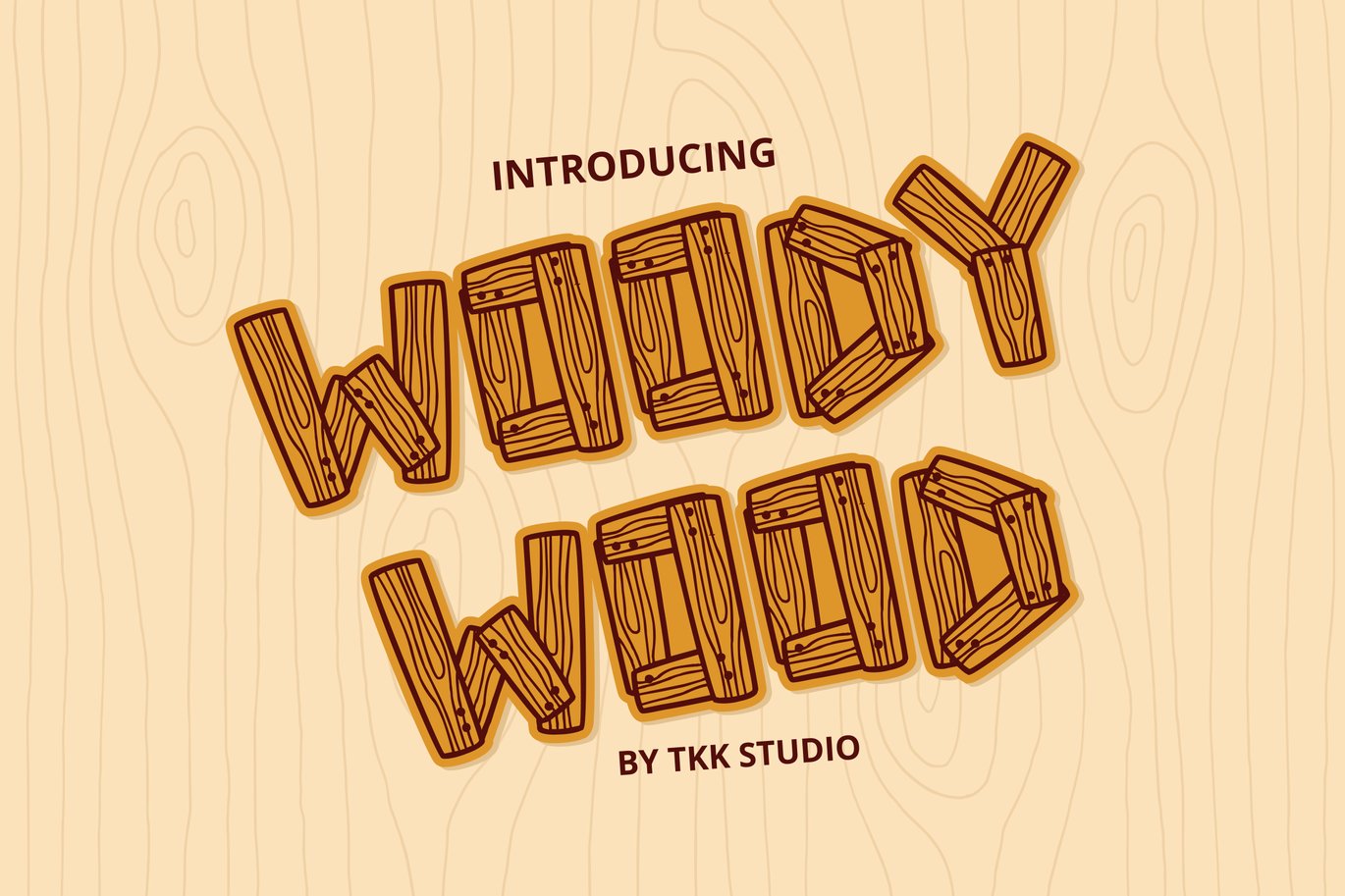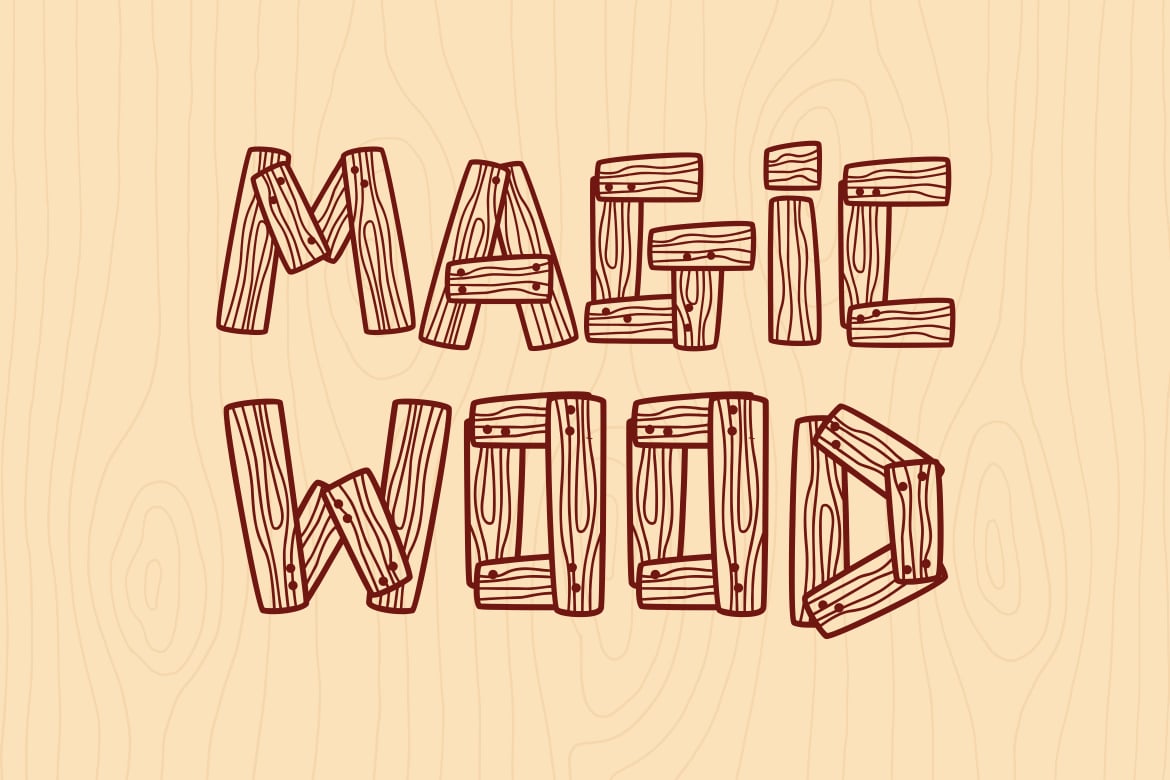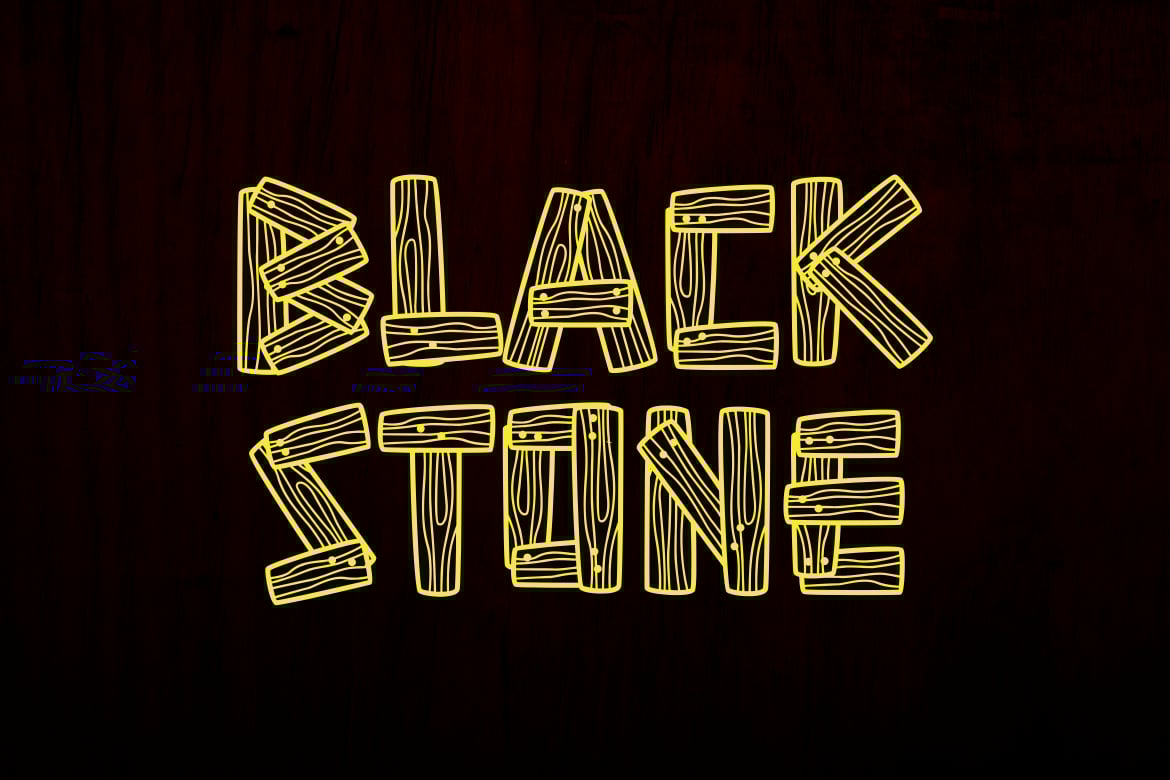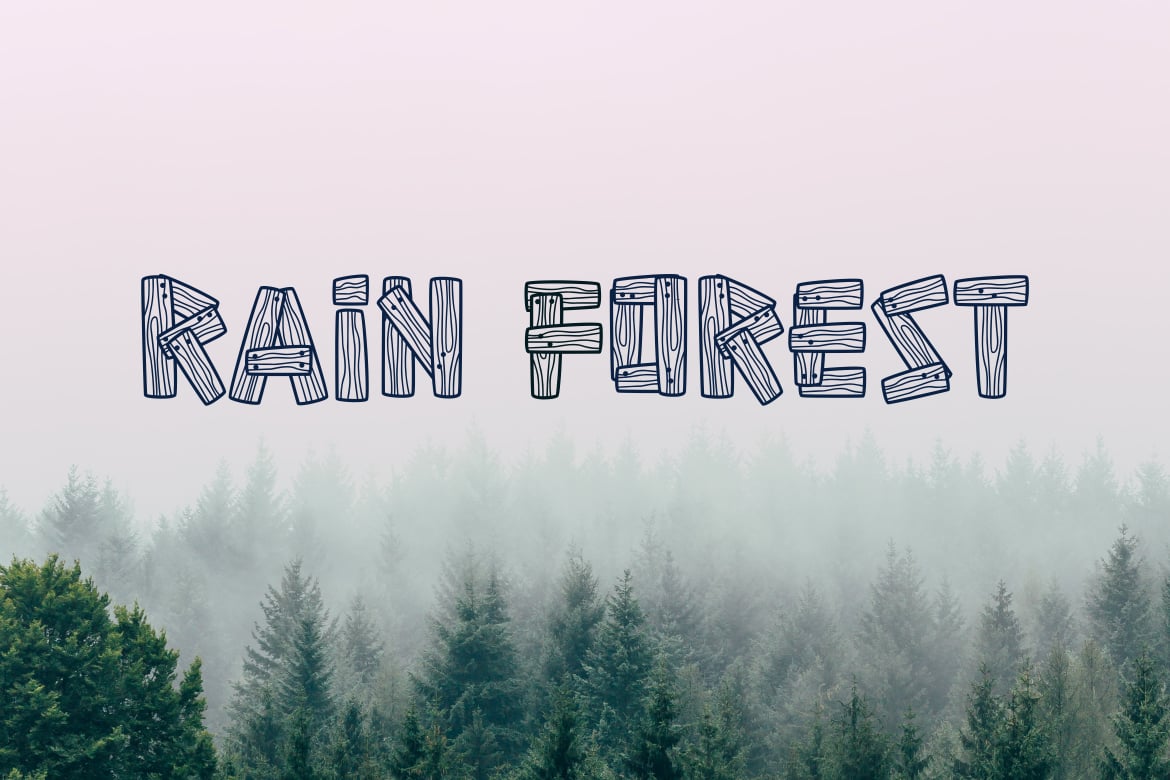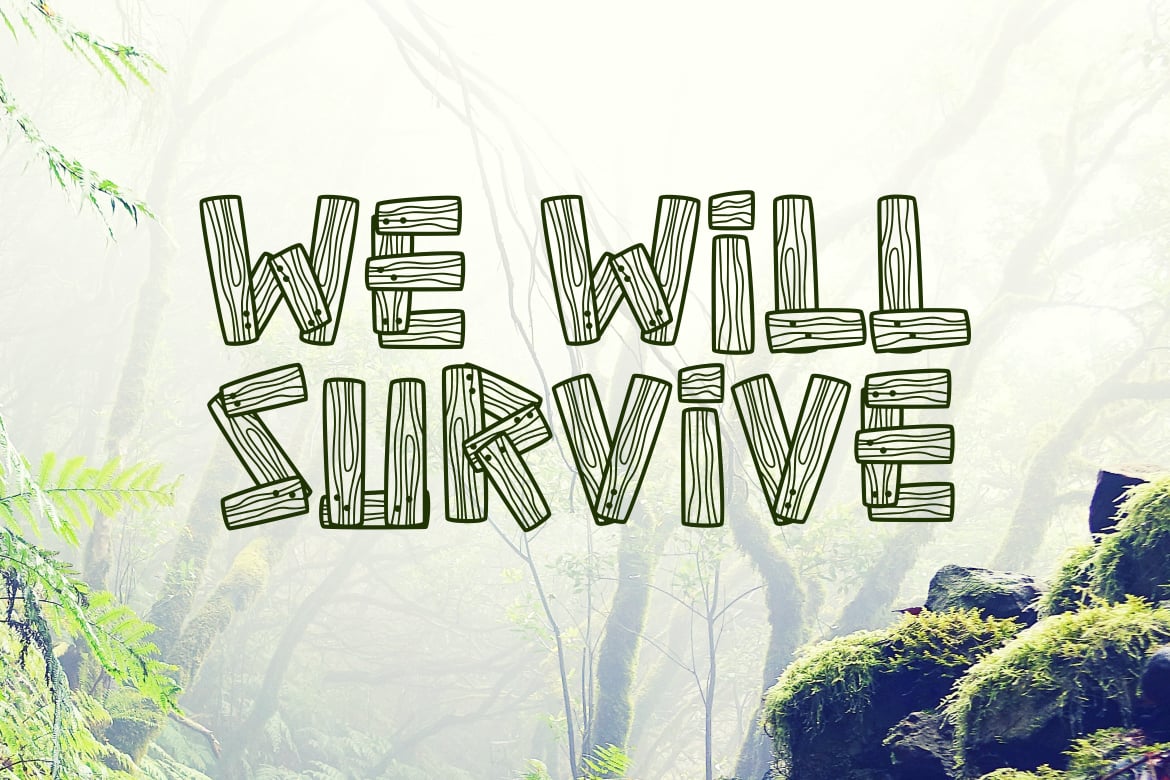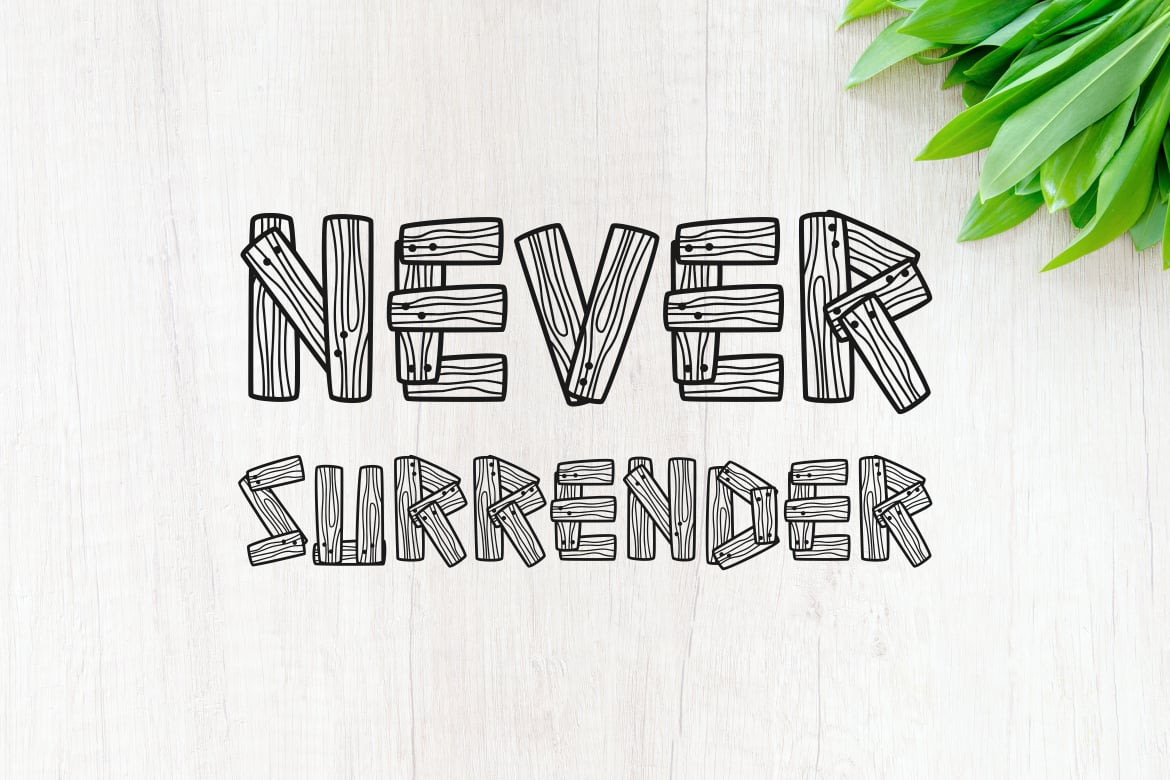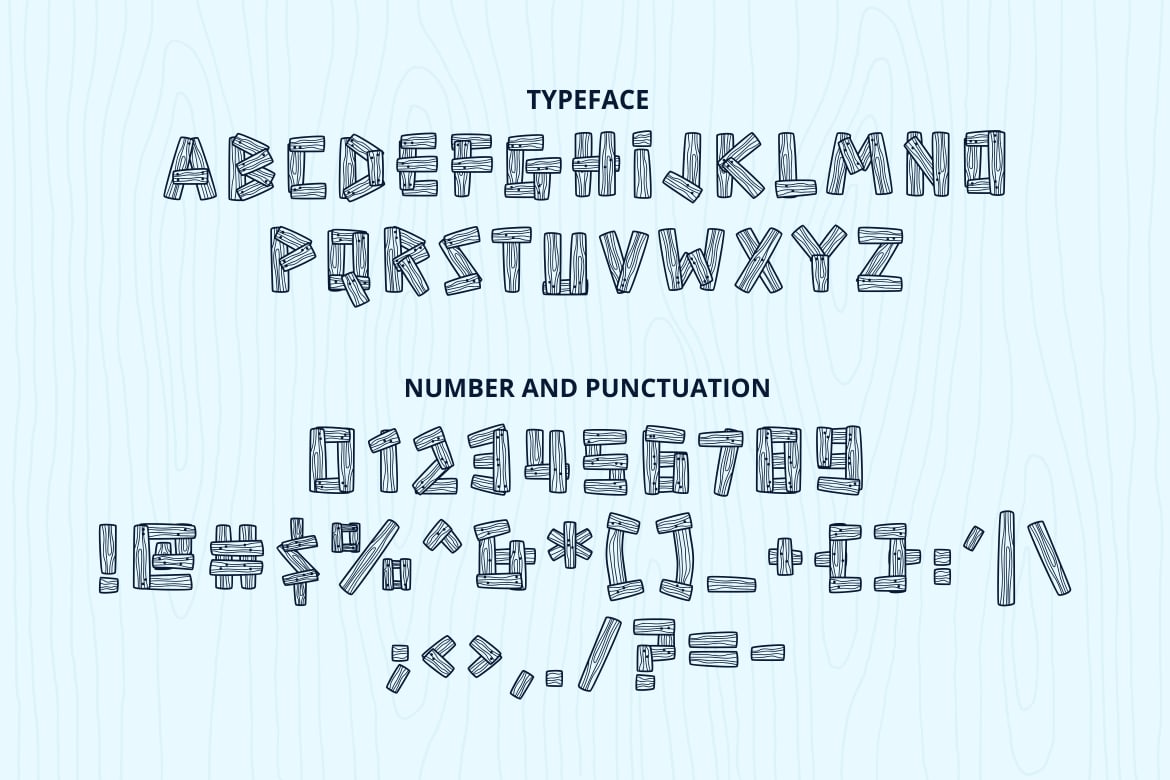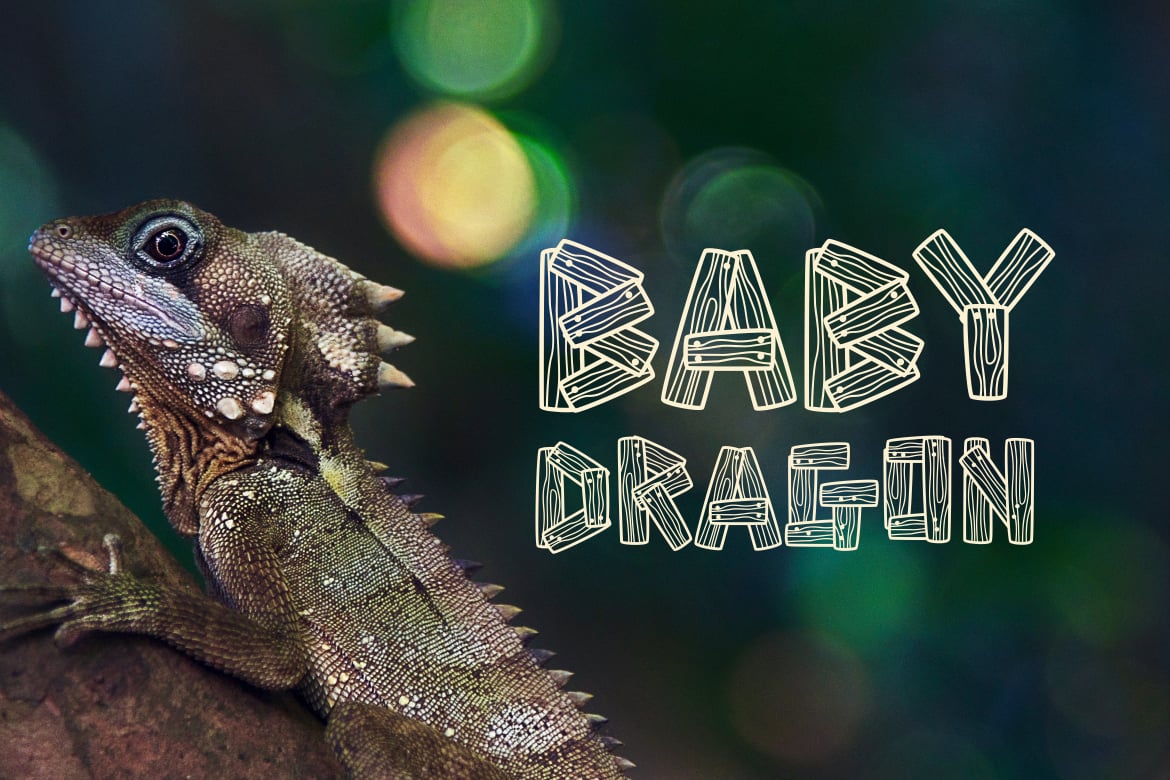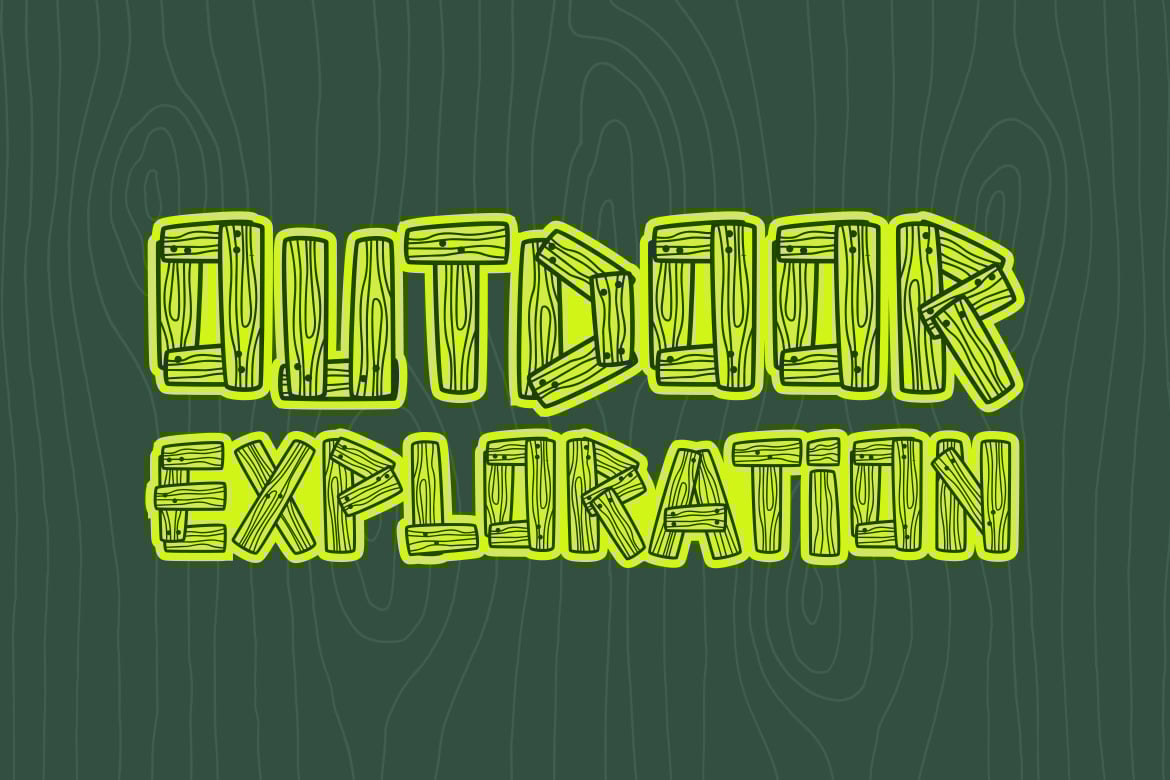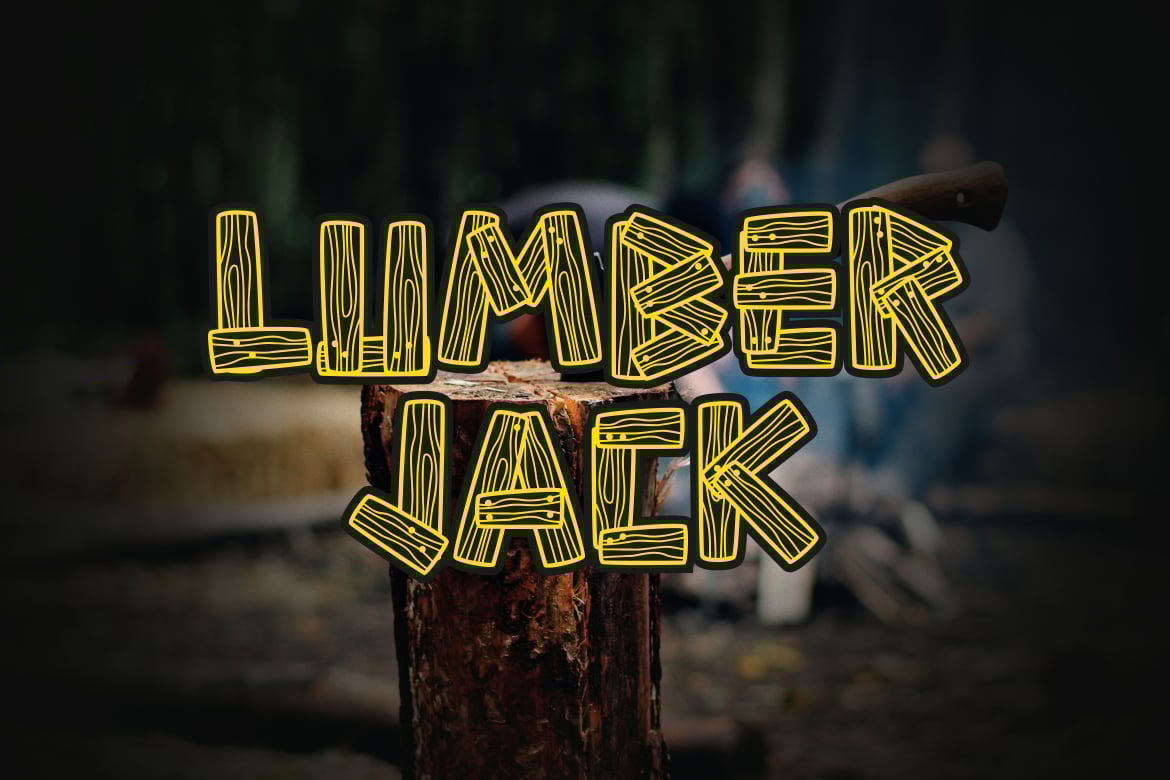
Woody Wood – Kids font
Woody Wood, just like it sounds, it took a wood plank, and we nailed them down and make them as a font.
Suit perfectly for Adventure website headline, poster, traveling magazine, and so on.